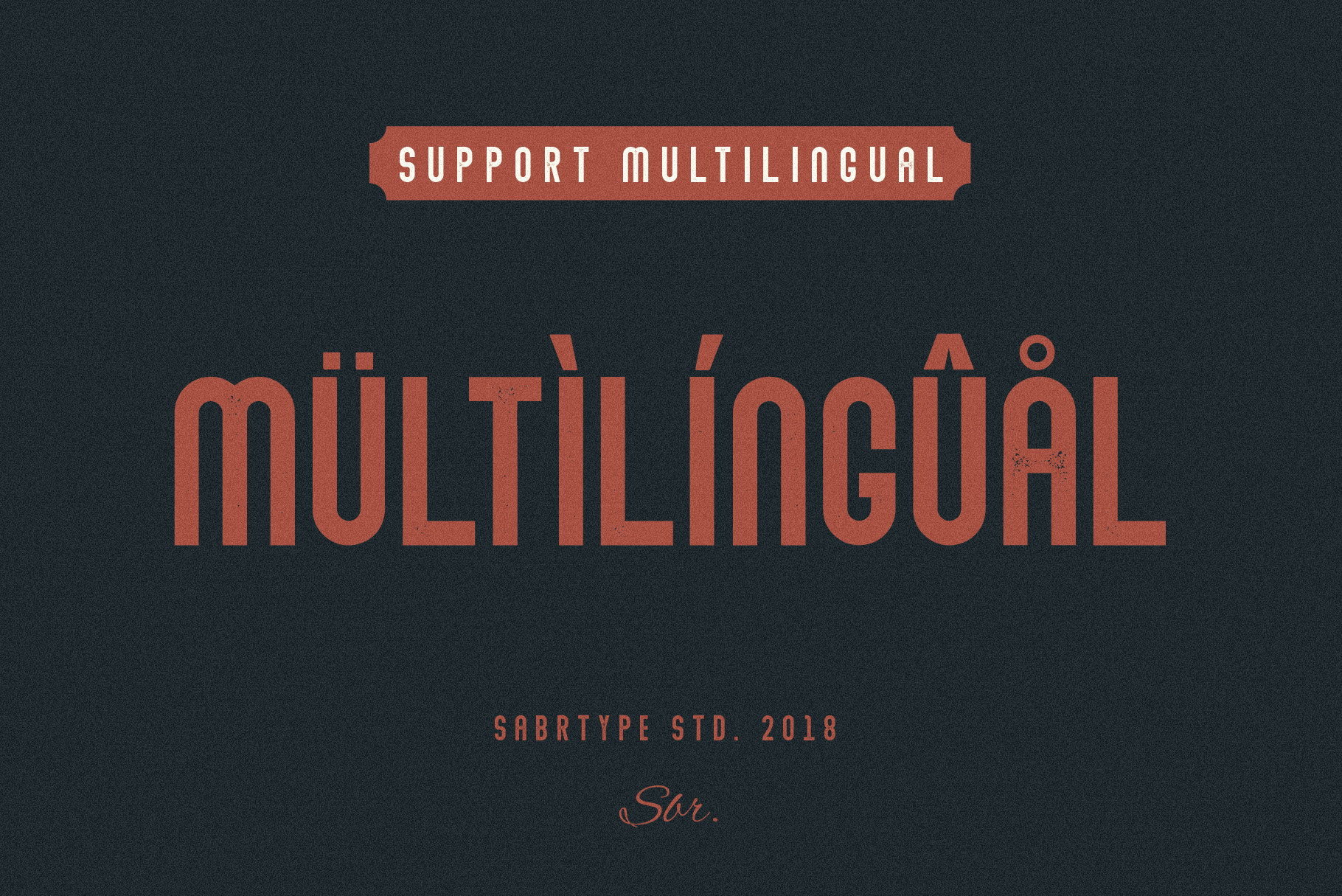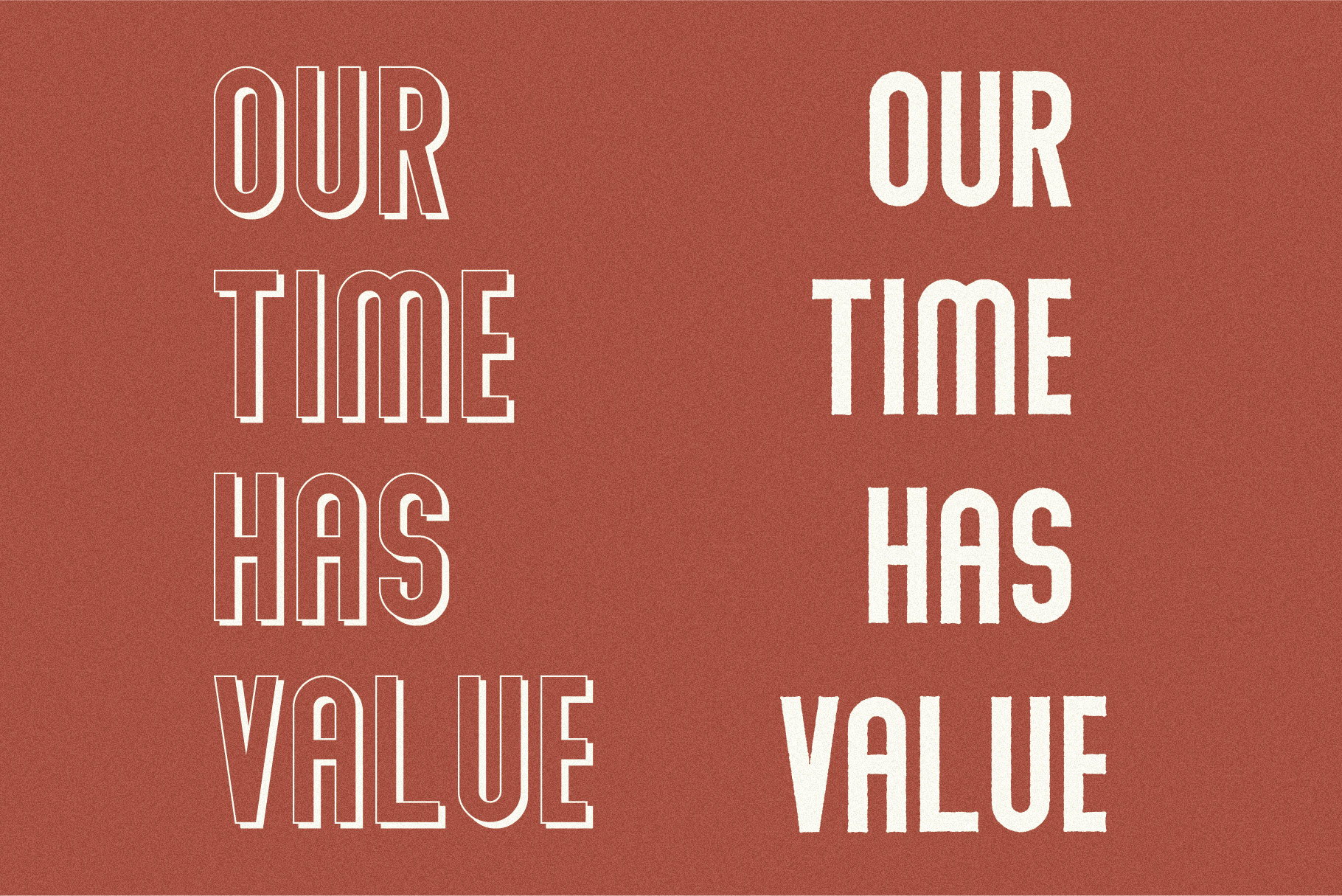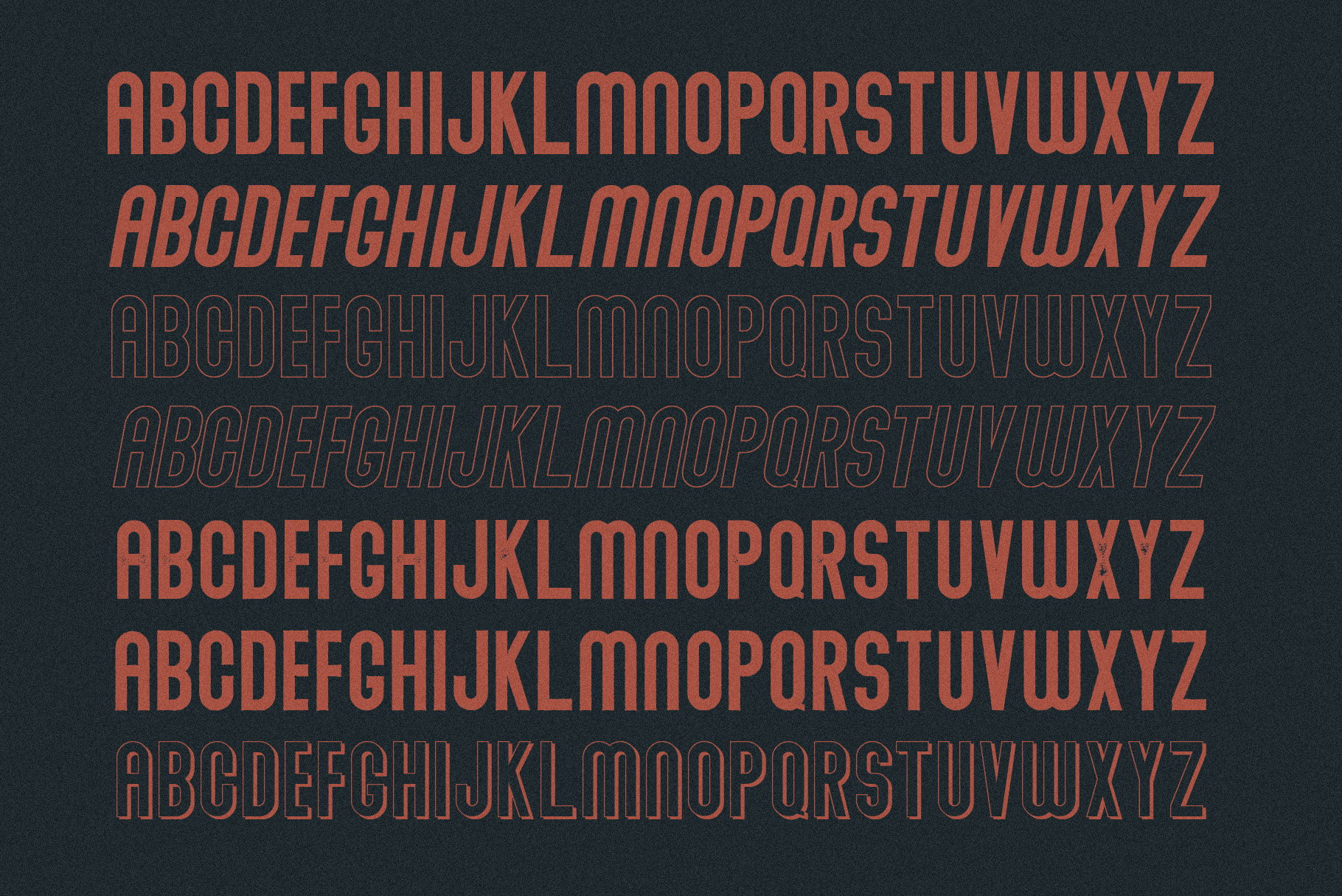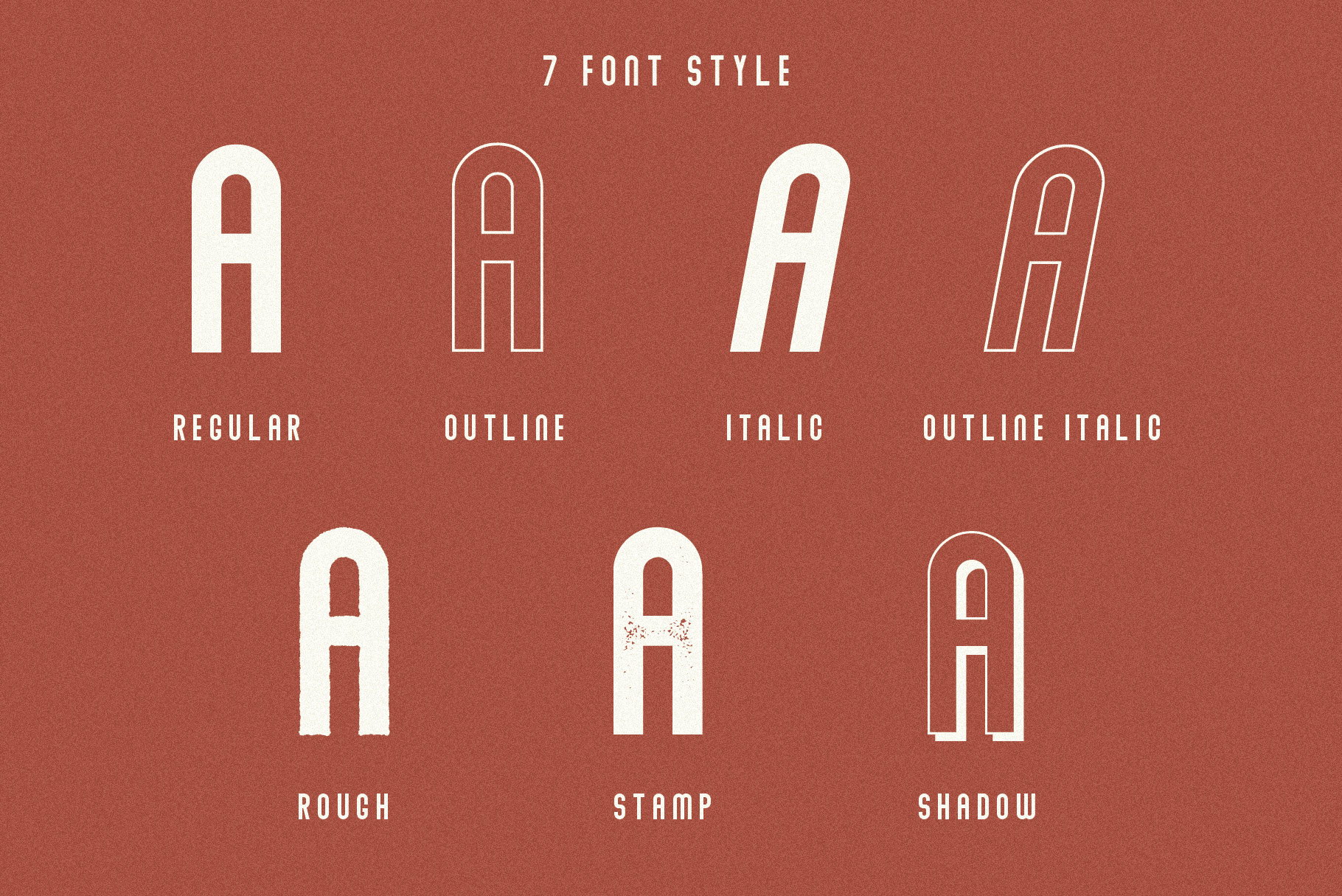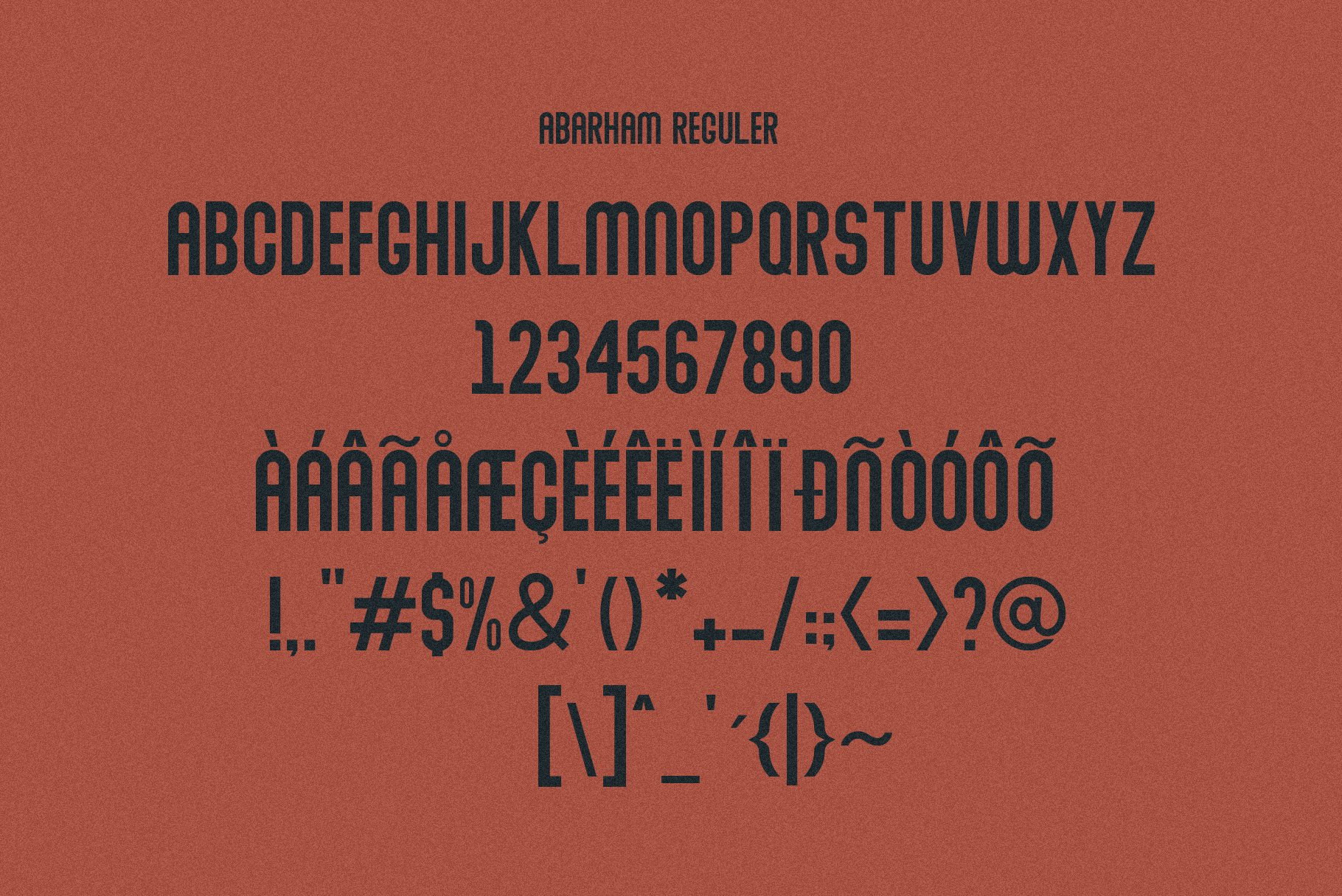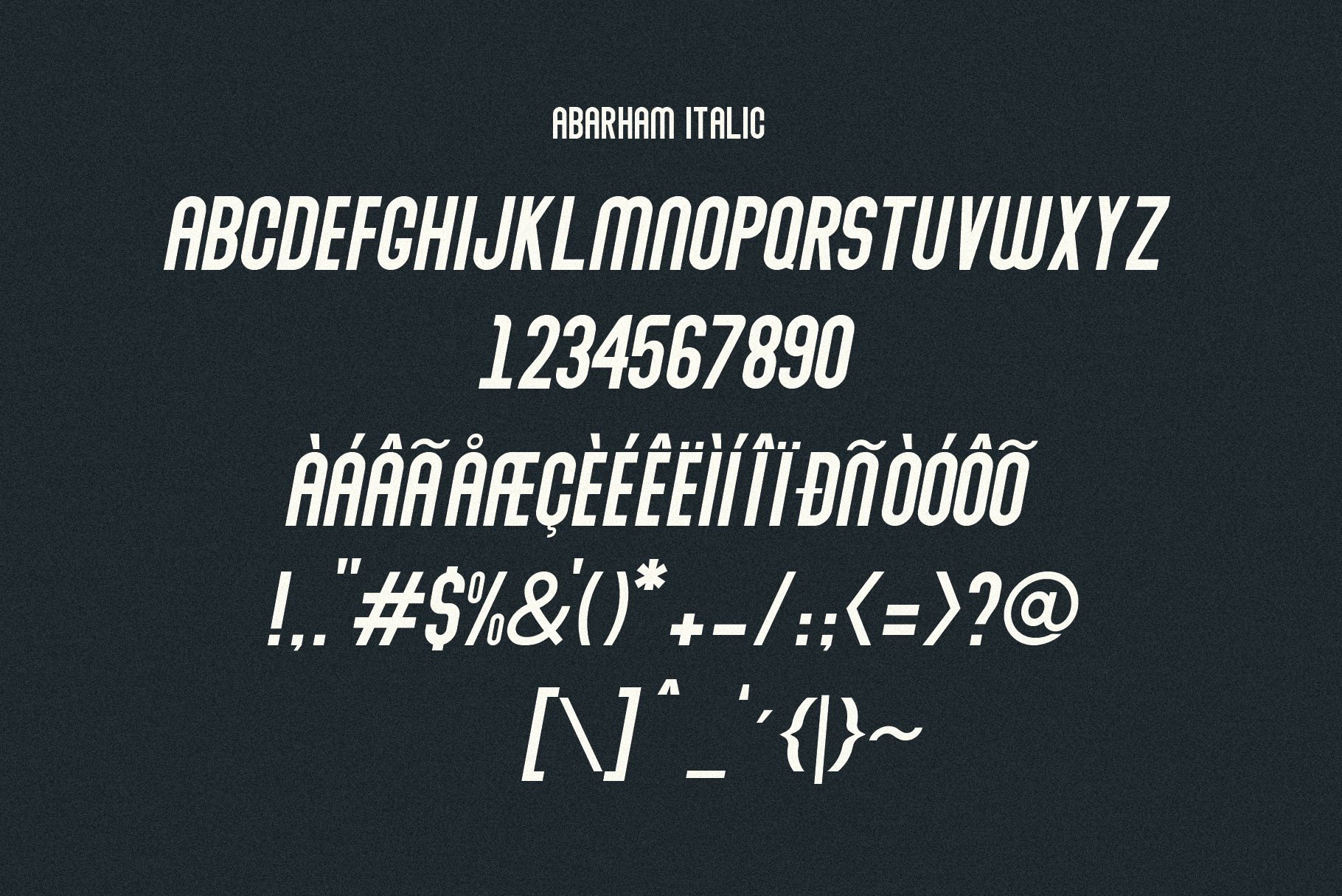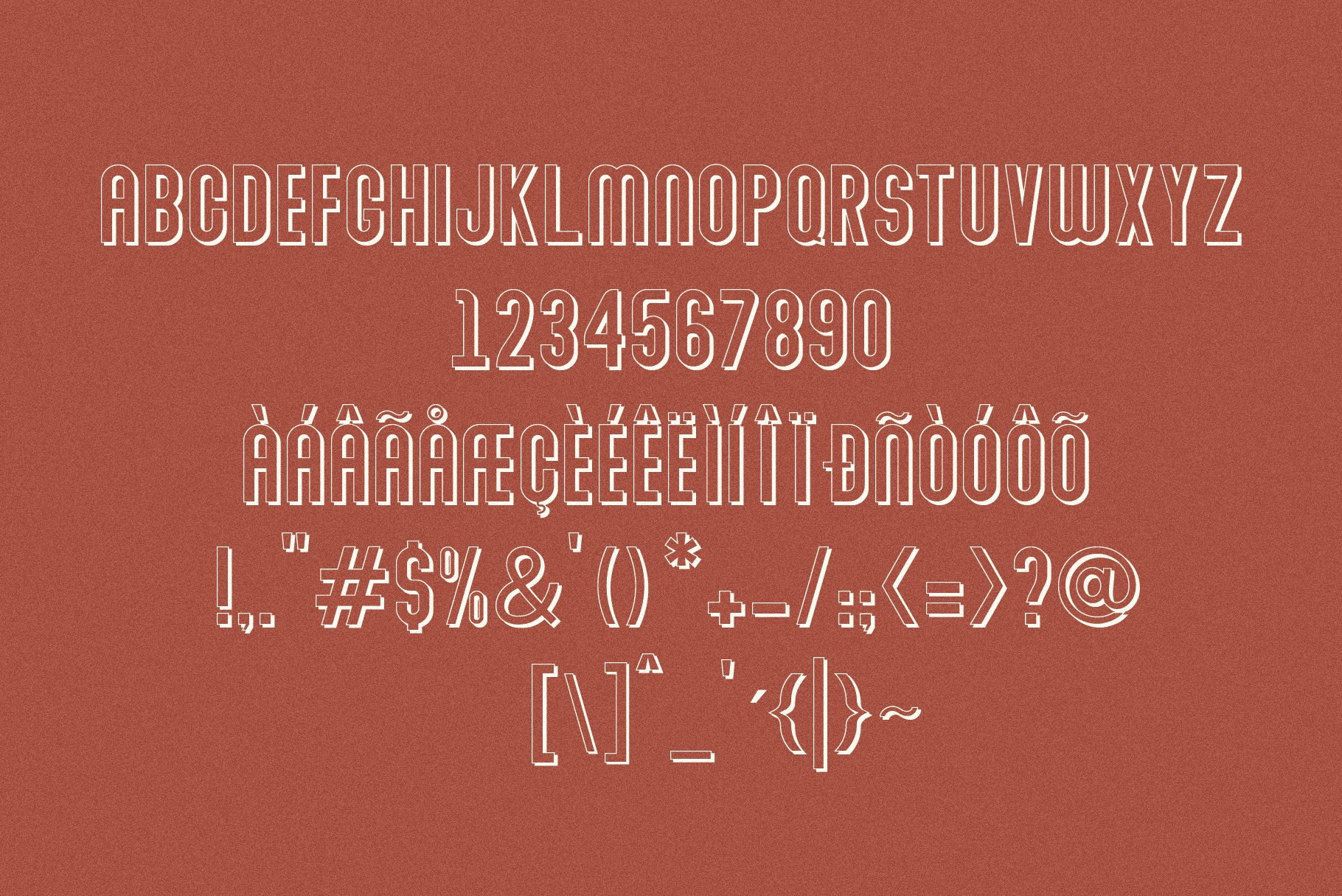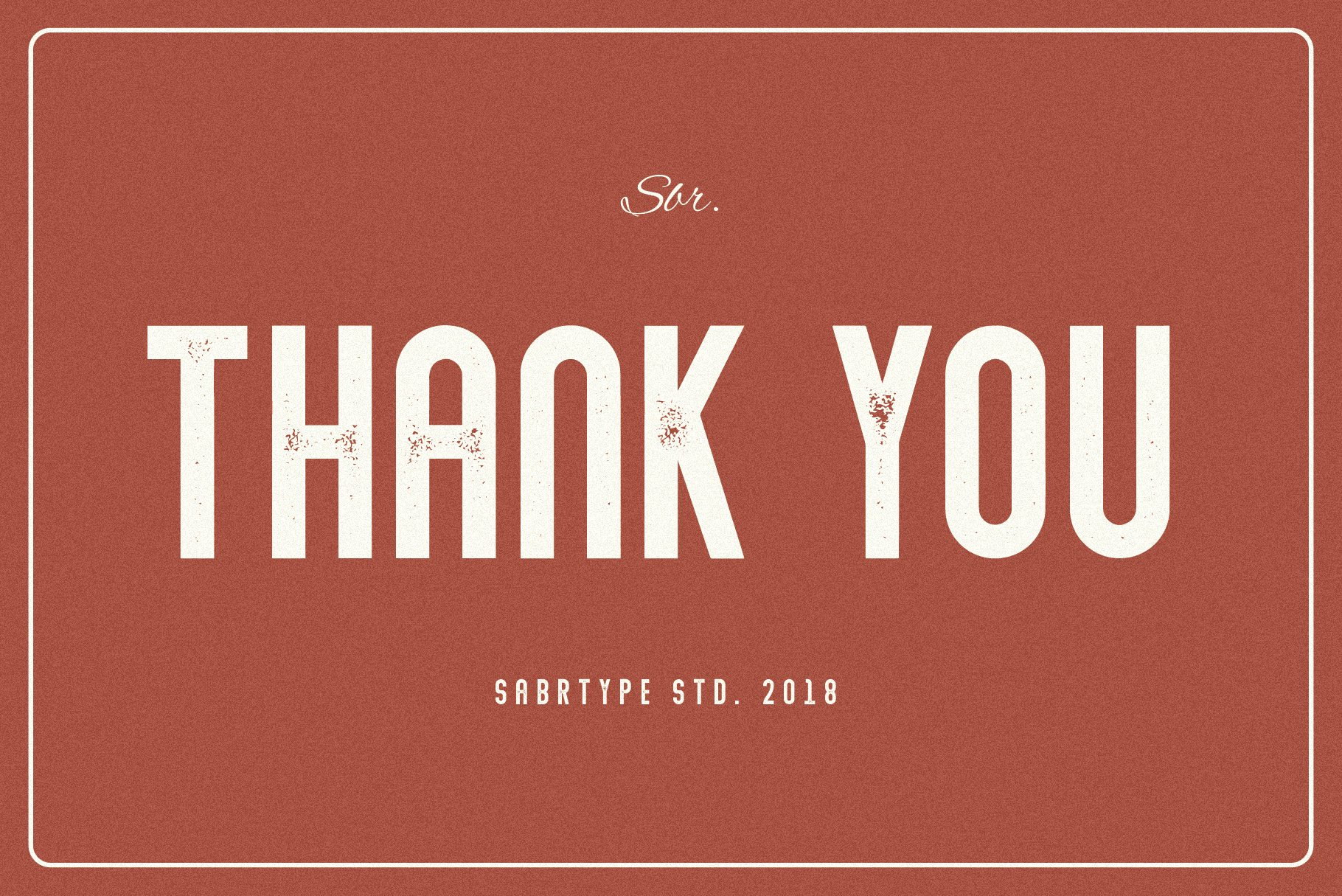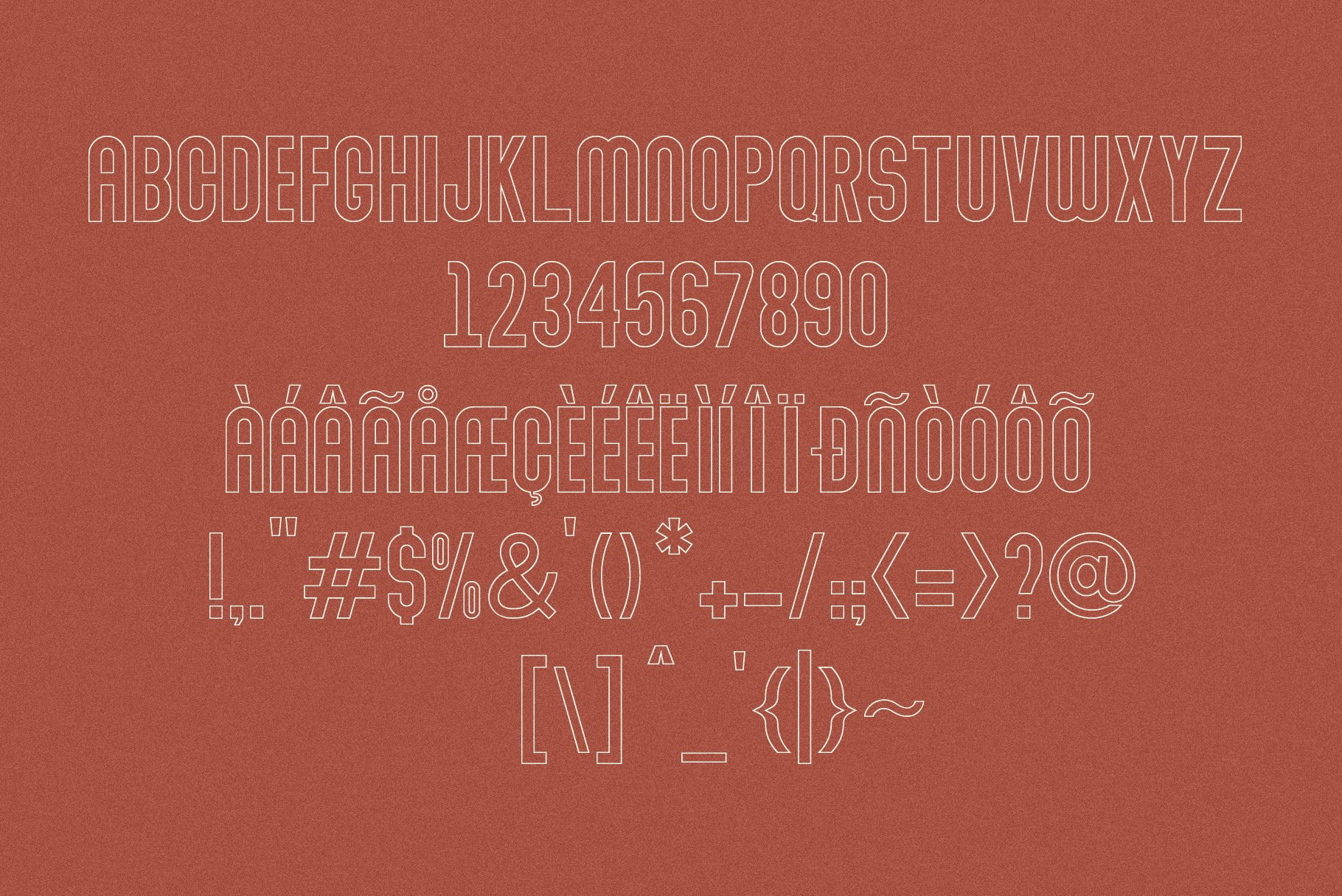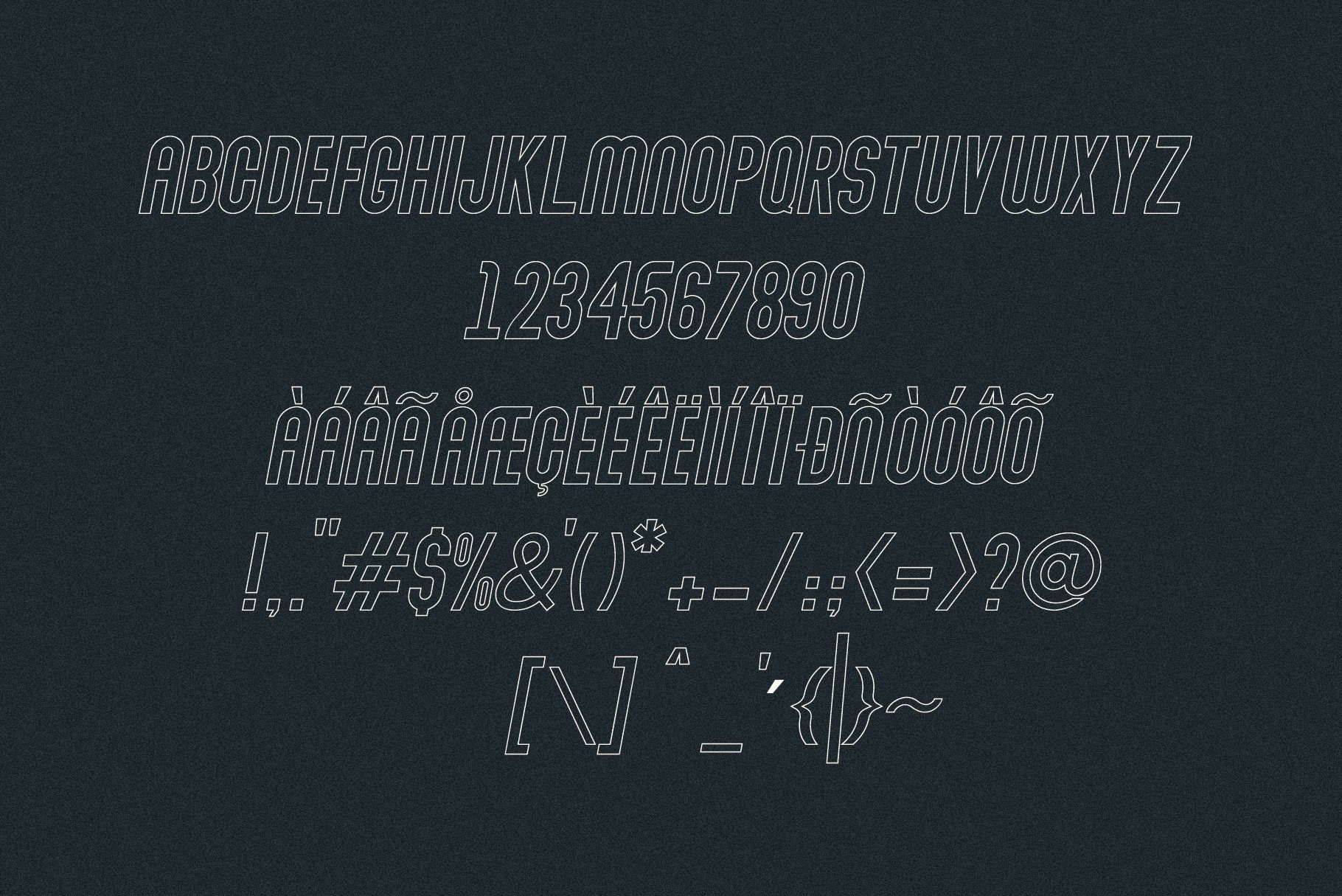
Abraham is a bold, condensed sans serif font with a tall x-height and a touch of vintage charm, featuring slightly rounded corners and a distressed texture that adds character and a worn, stamped effect. Its clean, geometric letterforms convey strength and clarity while the unique weathered details make it perfect for creating eye-catching headlines, logos, and packaging with a retro-industrial or rugged feel. This font works well in designs that want to blend modern impact with nostalgic appeal.
Abraham Font
About Abraham Font
| Font family | Abraham Font |
| Designer | Sabrtype Studio |